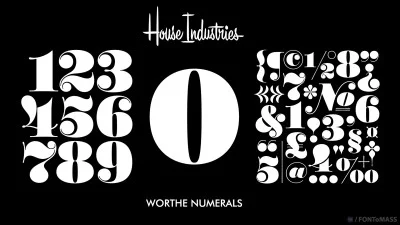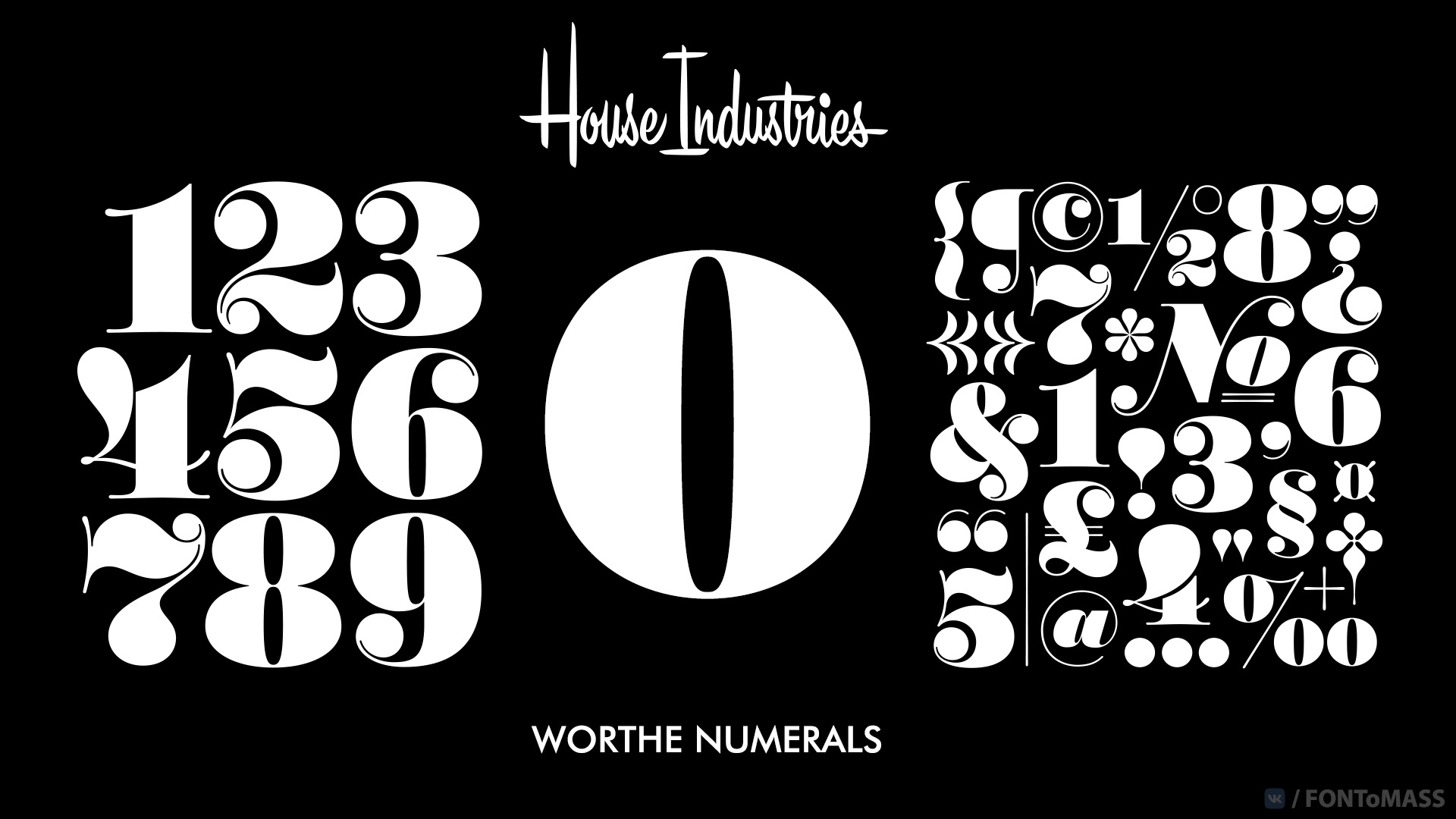
Worthe Numerals Font is ideal for financial reports, statistical presentations, data visualization projects, accounting software interfaces, mathematical publications, scientific research papers, economic analysis documents, numerical dashboard designs, pricing display systems, and quantitative business communications.
What makes Worthe Numerals Font so exciting is its exceptional specialization in numerical clarity and mathematical precision that delivers optimal readability and professional authority specifically for number-heavy applications and data-driven communications. This purposefully engineered typeface features meticulously crafted numerical characters with optimized proportions and mathematically precise spacing that immediately convey accuracy, reliability, and the fundamental importance of numerical integrity in professional data presentation. The font's numerical construction and data-focused aesthetic create an instant sense of mathematical authority and statistical credibility, making it ideal for projects that need to communicate quantitative excellence, financial precision, and the transformative power of clear numerical communication to audiences seeking accurate data interpretation and meaningful statistical understanding.
The Worthe Numerals Font family typically includes multiple numerical weights and mathematical styles, often featuring tabular figures, proportional numerals, and specialized mathematical variations along with corresponding italic versions. Number-focused font families frequently offer extensive numerical character sets including mathematical symbols, currency indicators, and statistical notation that ensure optimal typography across diverse quantitative communication requirements and professional data applications.
Worthe Numerals Font Free Download provides designers with an invaluable tool for creating numerically excellent and mathematically compelling designs. Whether you're developing financial dashboards for investment firms, crafting statistical reports for research organizations, or designing data visualization interfaces that require absolute numerical clarity and professional mathematical presentation, this font delivers the quantitative presence that financial professionals and data-conscious audiences expect and trust.
The numerical nature of Worthe Numerals Font makes it particularly effective for targeting demographics that work extensively with numbers and statistical data in their professional and analytical pursuits. Financial analysts and data scientists will find this font especially valuable for materials that must establish immediate mathematical credibility and support complex numerical analysis across diverse statistical applications and quantitative research contexts.
What distinguishes Worthe Numerals Font is its ability to provide superior numerical legibility while maintaining the professional aesthetics essential for effective financial and statistical communication. This specialized characteristic makes it suitable for both hardcore mathematical applications and business presentations where projecting numerical competence and maintaining visual appeal must coexist harmoniously.
Professional designers recognize that Worthe Numerals Font brings invaluable numerical credibility to projects across industries including finance, research, data analysis, and statistical consulting. Its mathematical character and numerical appeal make it essential for organizations whose mission centers on advancing quantitative understanding, improving data communication, and creating meaningful connections between complex numerical information and audience comprehension.
The systematically optimized numerical design of Worthe Numerals Font ensures consistent mathematical messaging across all number-focused communication applications while honoring the fundamental principles of numerical clarity and statistical precision.